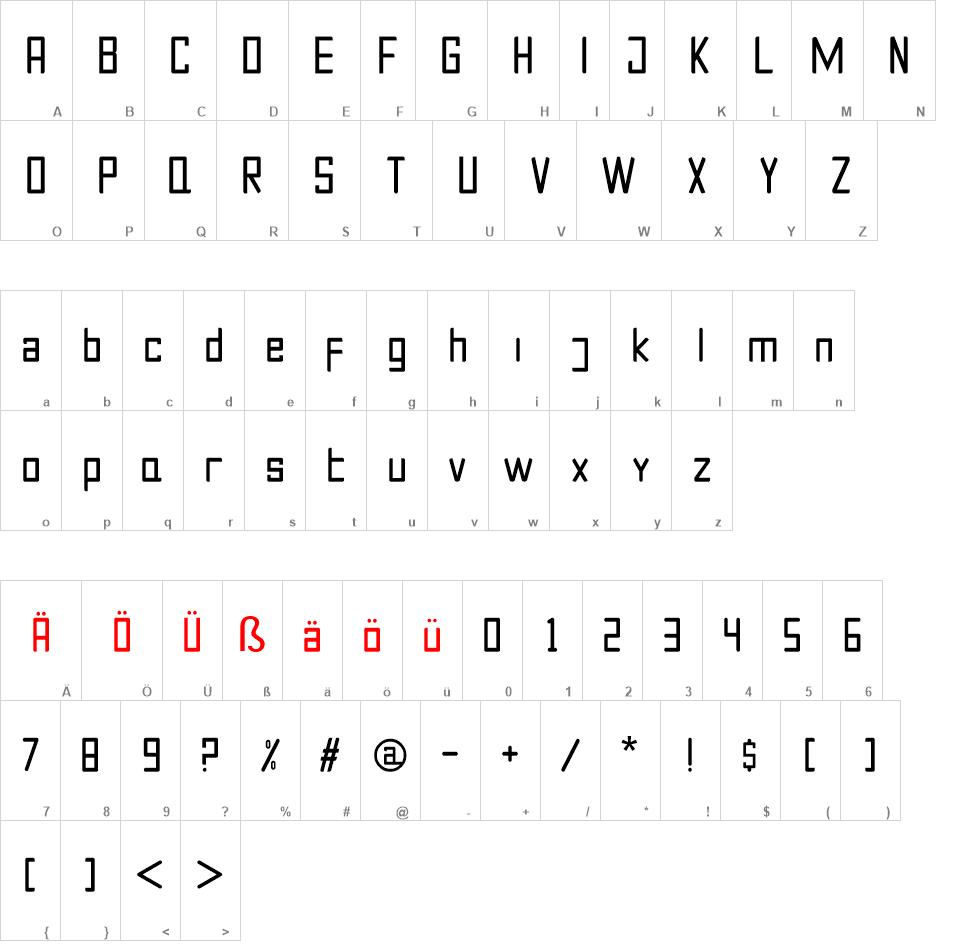
Javanese Neu
The Javanese Neu is a striking sans serif. It’s a strong and ravishing sans serif typeface. Perfect for adding a completely timeless look to your designs!